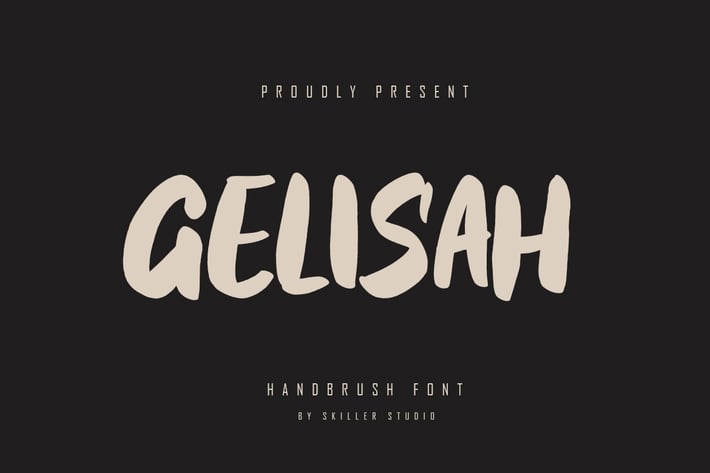
Gelisah - Handbrush Font
Gelisah is a modern and brushed handwritten font, crafted to give your headlines and logotype projects a stylish touch. This font reads as strong, confident, and dynamic and can add tons of urban character to your designs.